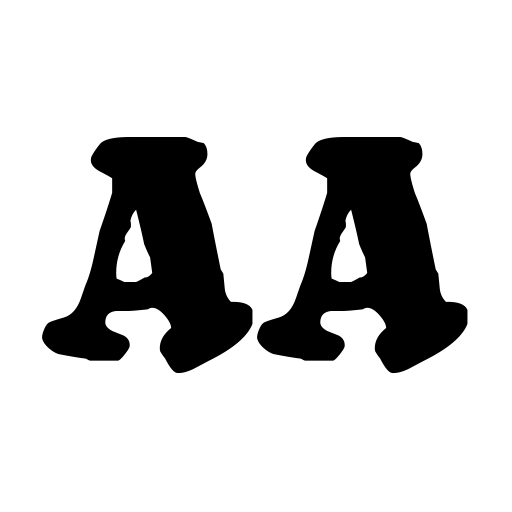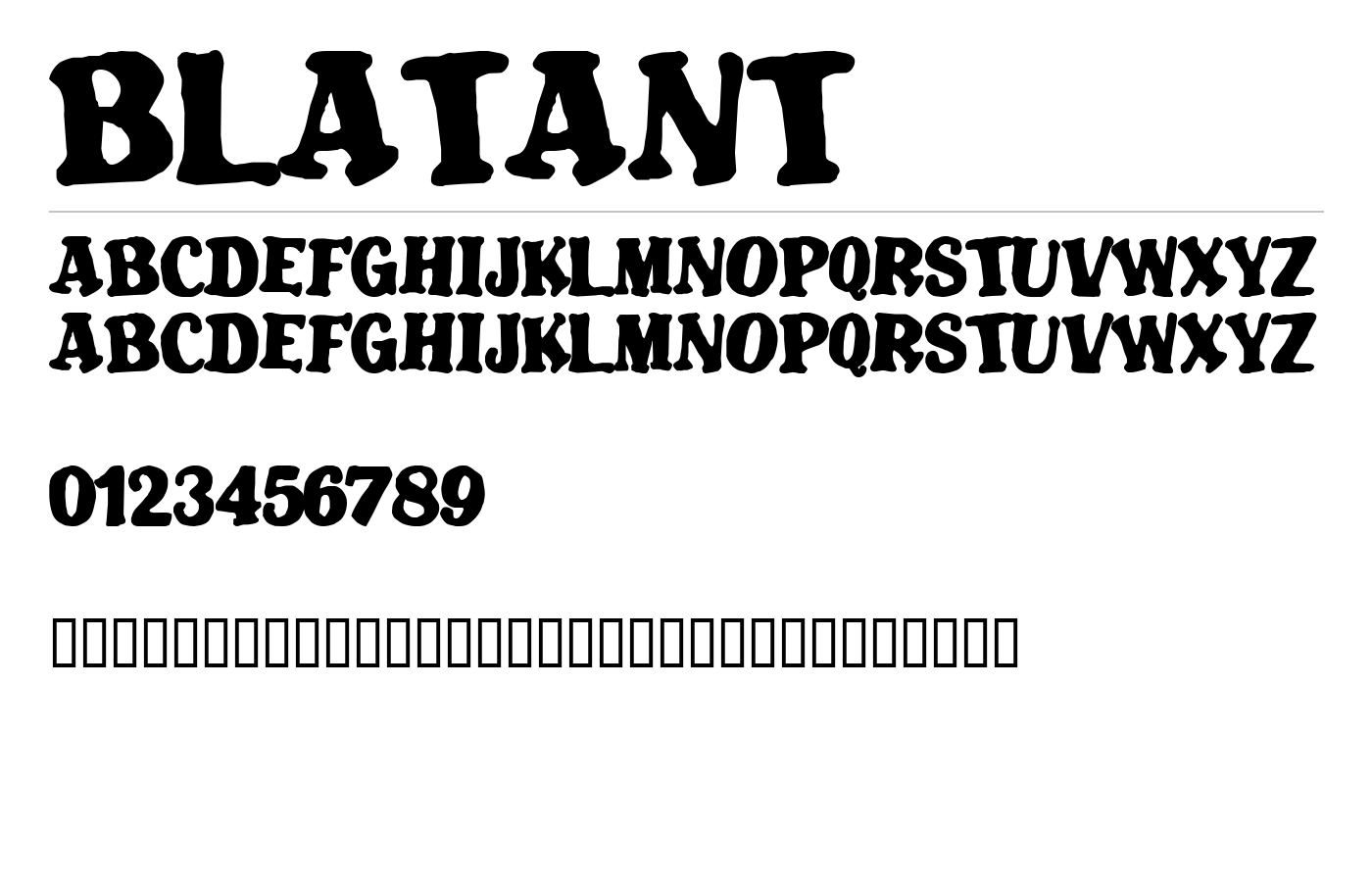
Blatant is a bold, serif typeface with a playful, irregular character that gives it a hand-crafted feel. Its heavy weight and uneven stroke edges make it perfect for attention-grabbing headlines, posters, and branding that seeks a quirky, fun, and informal vibe. This font works well where a strong, distinctive personality is desired, adding a touch of rustic charm to any design.
Blatant Font